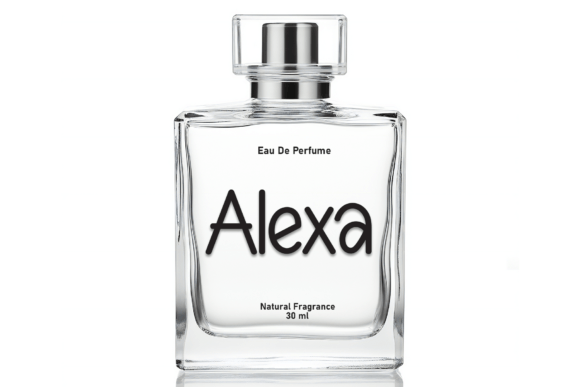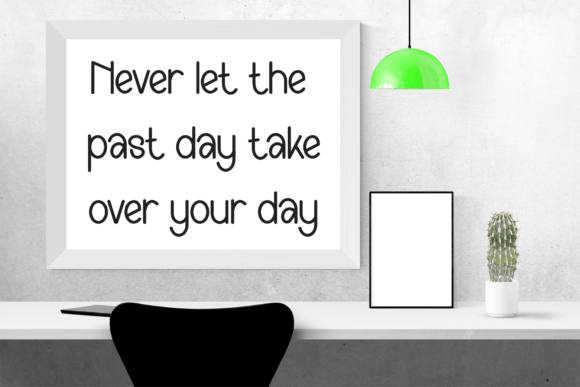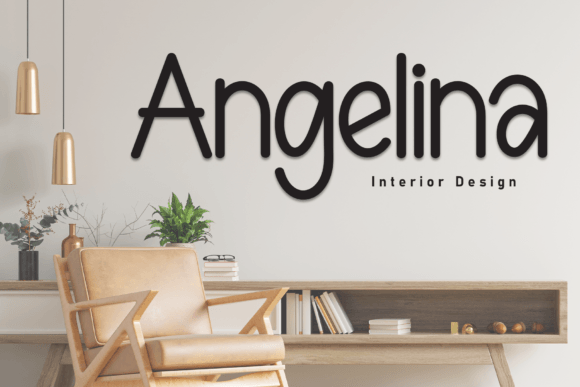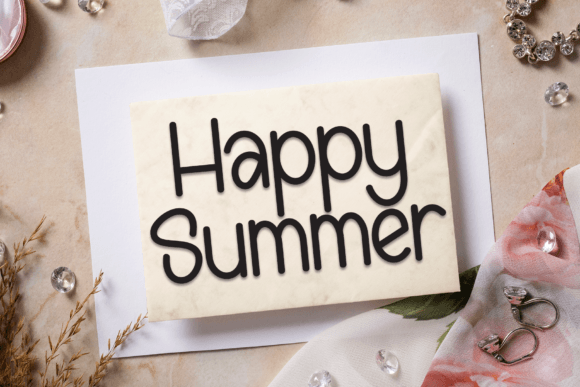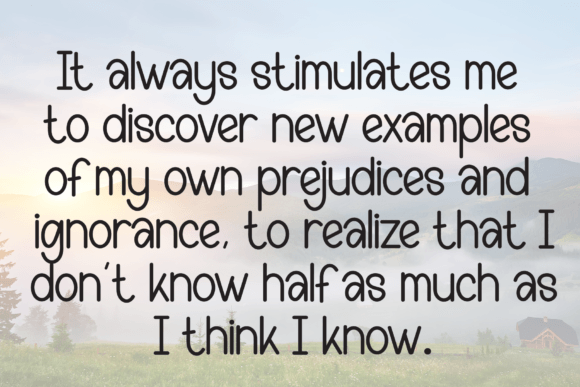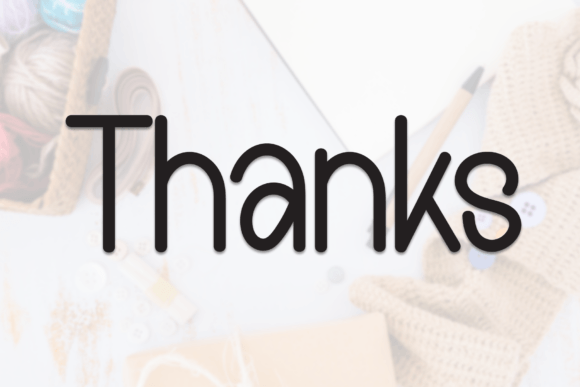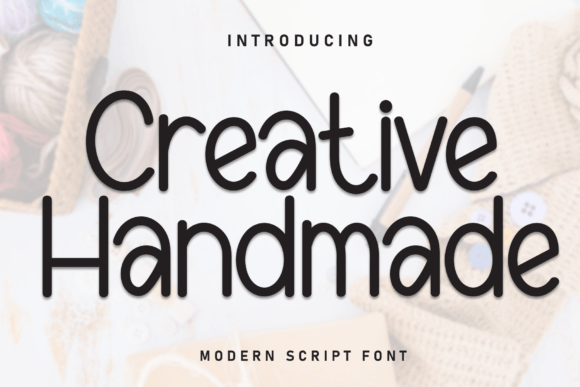
Introducing Creative Handmade Font: The Sweet and Friendly Choice for Your Designs
Are you tired of using the same old fonts in your designs? Do you want to add a personal touch to your projects? Look no further than Creative Handmade Font, a beautiful and friendly handwritten font that’s perfect for a wide range of designs. With its natural and unique style, Creative Handmade Font is incredibly versatile and can be used in everything from branding and packaging to invitations and social media graphics.
The Charm of Handmade Fonts
Handmade fonts have a certain charm and character that’s hard to replicate with digital fonts. They have a personal, human touch that can make your designs feel more approachable and relatable. Creative Handmade Font is no exception. Its sweet and friendly style makes it perfect for designs that need a touch of warmth and personality.
What Makes Creative Handmade Font So Special?
So, what sets Creative Handmade Font apart from other fonts? Here are just a few things that make it special:
- Natural and Unique Style: Creative Handmade Font has a natural, handwritten style that’s full of character and personality. Its unique letterforms and subtle imperfections make it feel like it was written by hand, rather than typed on a keyboard.
- Highly Versatile: Whether you’re designing a logo, creating a social media graphic, or crafting a beautiful invitation, Creative Handmade Font is up to the task. Its versatility makes it a great addition to any designer’s toolkit.
- Easy to Read: Despite its handmade style, Creative Handmade Font is incredibly easy to read. This makes it perfect for designs that need to communicate a message, such as posters, flyers, and brochures.
How to Use Creative Handmade Font in Your Designs
Now that you know a little bit about Creative Handmade Font, let’s talk about how to use it in your designs. Here are a few ideas to get you started:
- Branding and Packaging: Use Creative Handmade Font to add a personal touch to your branding and packaging. It’s perfect for labels, tags, and other design elements that need a touch of warmth and personality.
- Invitations and Stationery: Create beautiful invitations, greeting cards, and other stationery items with Creative Handmade Font. Its handmade style makes it perfect for weddings, birthdays, and other special occasions.
- Social Media Graphics: Use Creative Handmade Font to create eye-catching social media graphics that stand out from the crowd. It’s perfect for quotes, inspirationals, and other types of content that need a touch of personality.
Tips for Getting the Most Out of Creative Handmade Font
Here are a few tips for getting the most out of Creative Handmade Font:
- Experiment with Different Sizes and Colors: Don’t be afraid to experiment with different sizes and colors of Creative Handmade Font. Its handmade style looks great in a variety of sizes and colors, so don’t be afraid to try something new.
- Pair it with Other Fonts: Creative Handmade Font looks great on its own, but it can also be paired with other fonts to create a unique and interesting design. Try pairing it with a clean, sans-serif font for a beautiful contrast.
- Use it to Add Emphasis: Use Creative Handmade Font to add emphasis to certain design elements, such as headings or calls-to-action. Its handmade style makes it perfect for adding a touch of personality to your designs.
In conclusion, Creative Handmade Font is a sweet and friendly handwritten font that’s perfect for designers and crafters who want to add a personal touch to their projects. Its natural and unique style makes it incredibly versatile, and its ease of use makes it a great addition to any designer’s toolkit. Whether you’re designing a logo, creating a social media graphic, or crafting a beautiful invitation, Creative Handmade Font is the perfect choice.